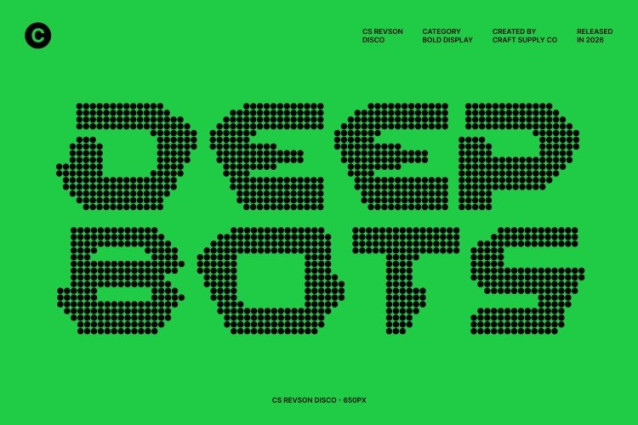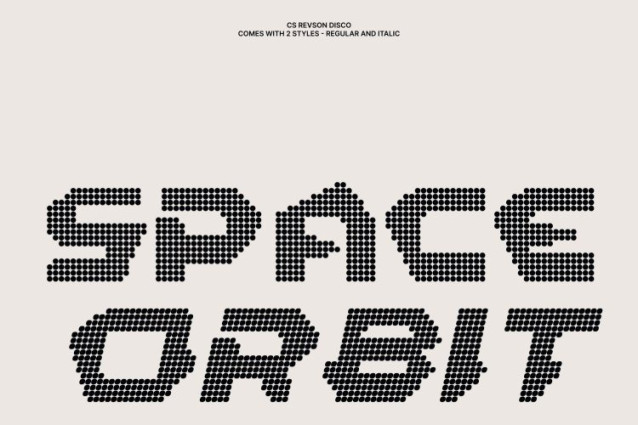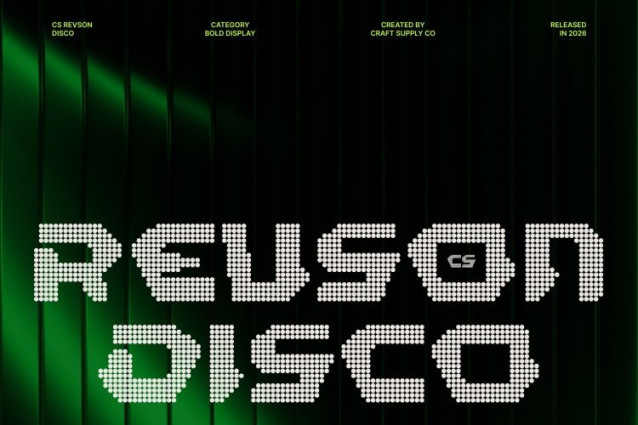
CS Revson Disco Font
CS Revson Disco Font – This is a futuristic display font that combines bold techno-inspired geometry with a vibrant disco-style dotted texture. Its strong letterforms and structured construction command attention, while the dotted surface introduces a dynamic sparkle that enhances the futuristic aesthetic with visual rhythm and energy.
Techno Structure with Luminous Character
Defined by sharp edges, clean lines, and precise geometric forms, the font reflects a distinctly techno-driven style. The disco-inspired dotted texture adds depth and motion to these futuristic shapes, transforming the bold structure into a visually engaging typographic experience.
Bold Impact with Futuristic Style
This font projects innovation and strength through its confident forms. The fusion of futuristic geometry and decorative texture creates a powerful visual identity that feels both cutting-edge and expressive. This balance ensures the font remains readable while delivering a striking modern presence.
Perfect for Sci-Fi, Gaming, and Tech Branding
This font excels in sci-fi game titles, technology branding, digital interfaces, posters, and promotional graphics. Its bold techno style establishes a futuristic atmosphere, while the textured sparkle adds personality and visual excitement to headlines and titles.